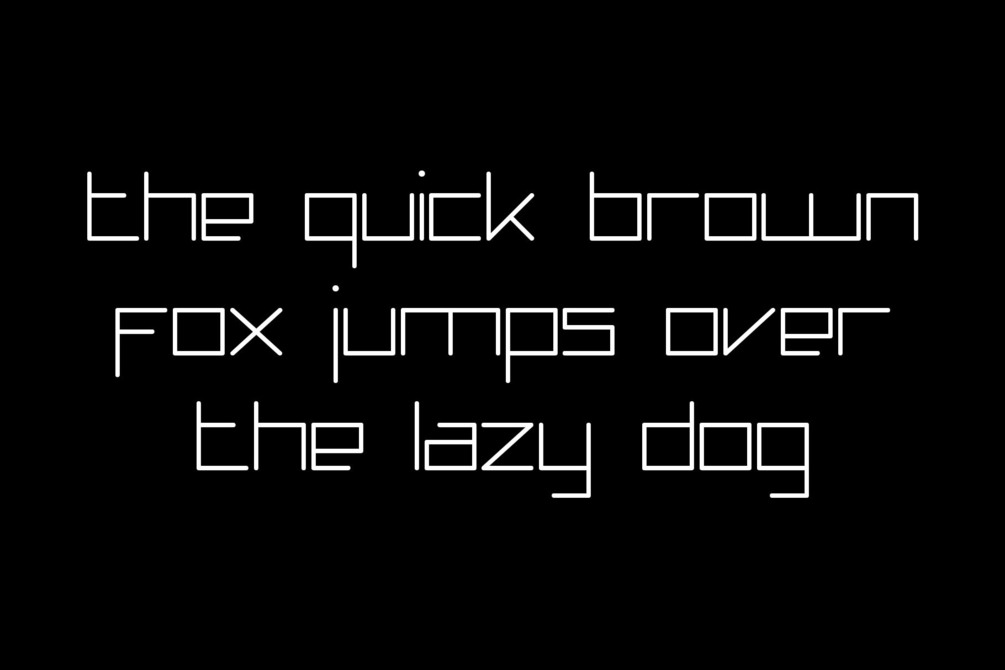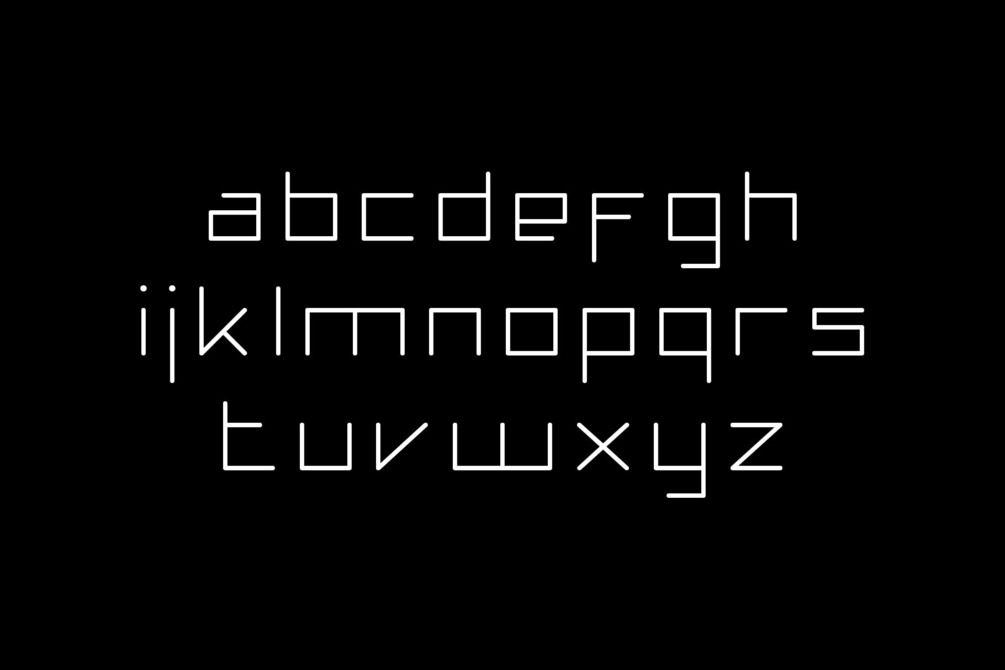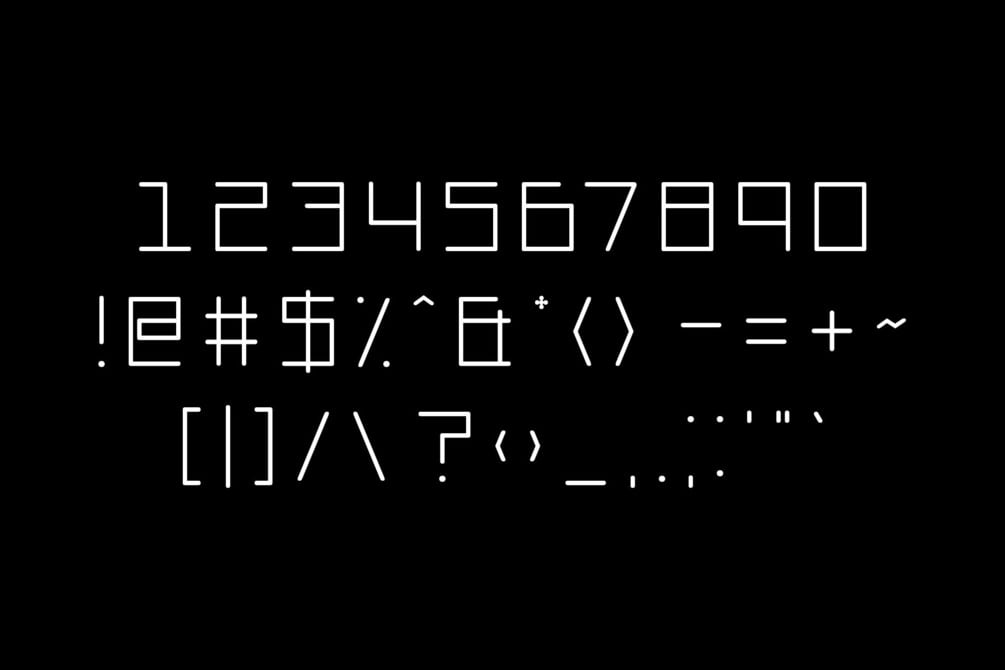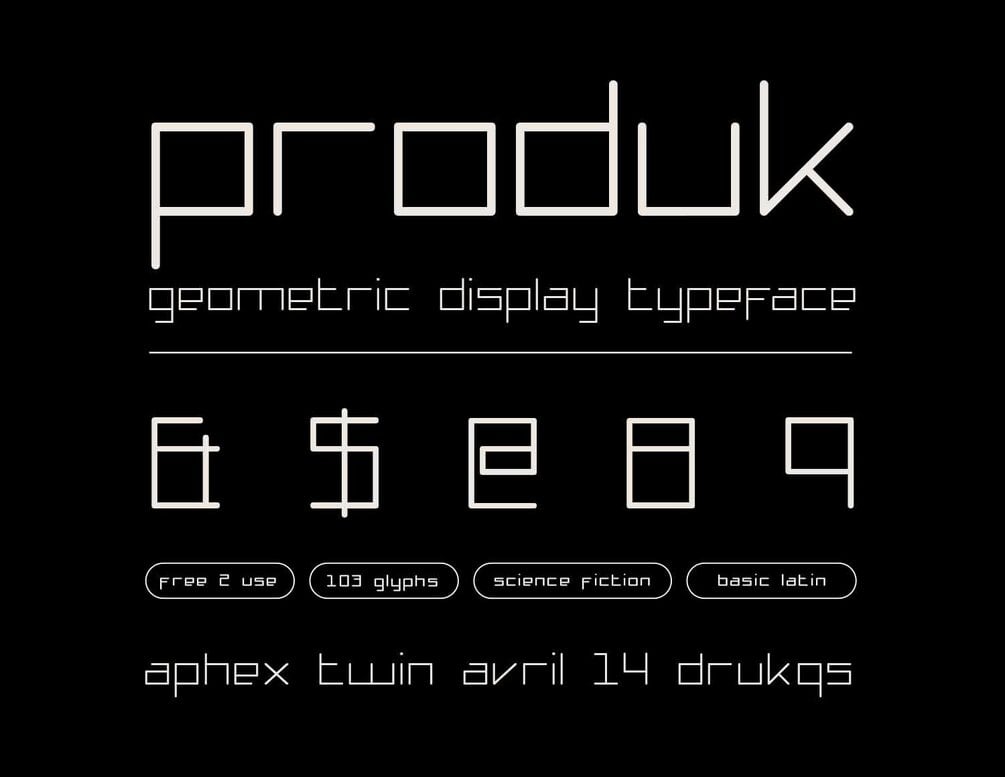
Produk — Display Font
PRODUK
Produk is a typeface inspired by electronic music and science fiction. This font contains 103 characters including lowercase, numbers, punctuation, and symbols.